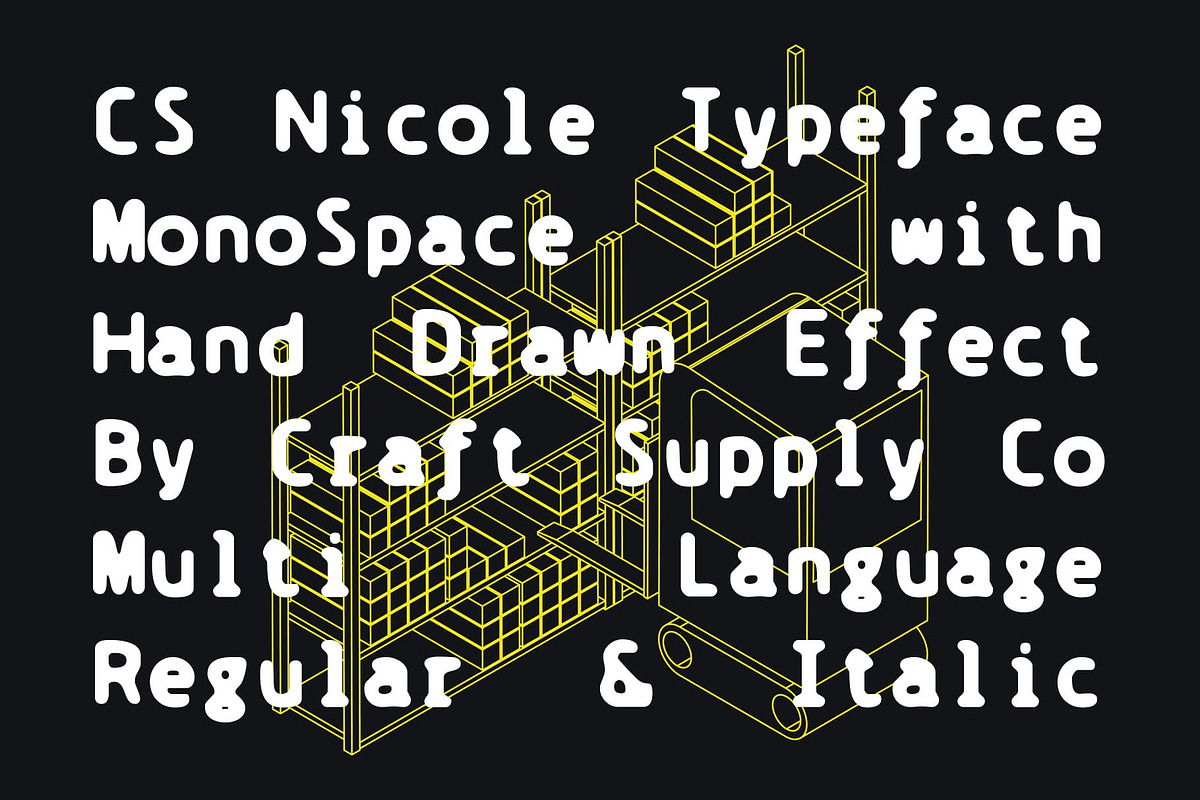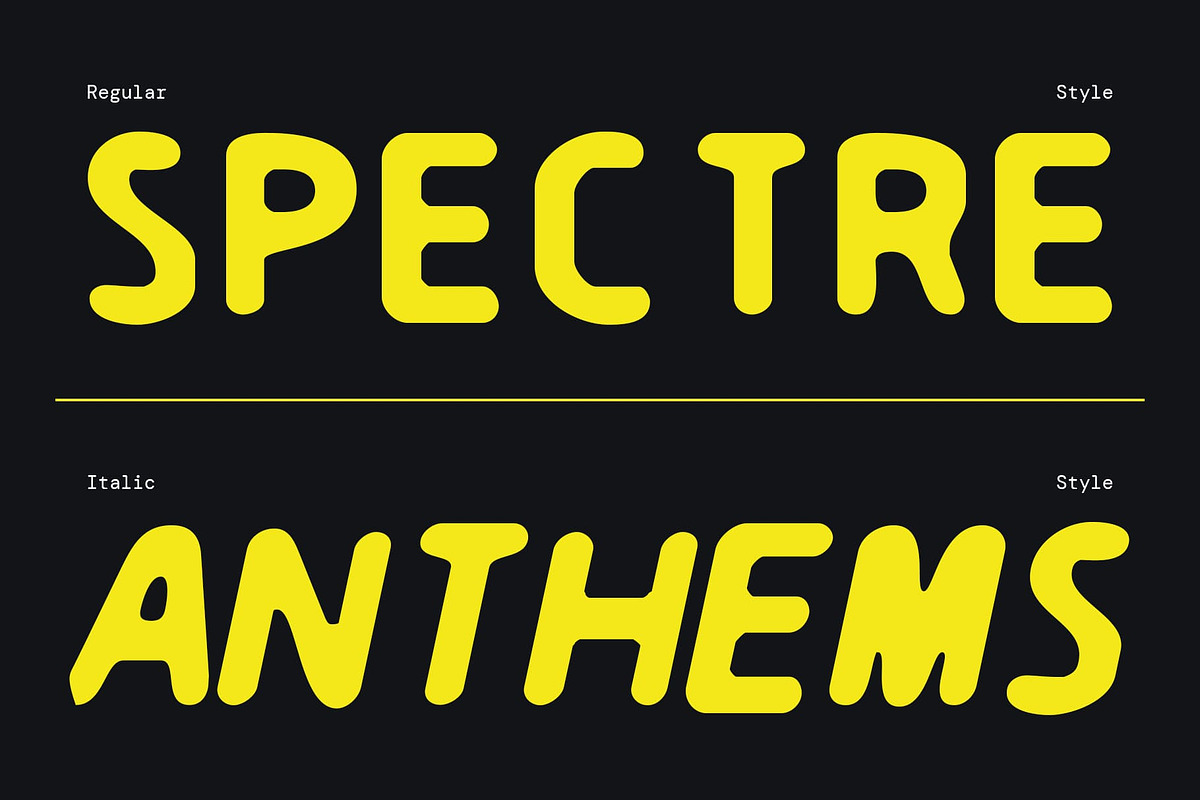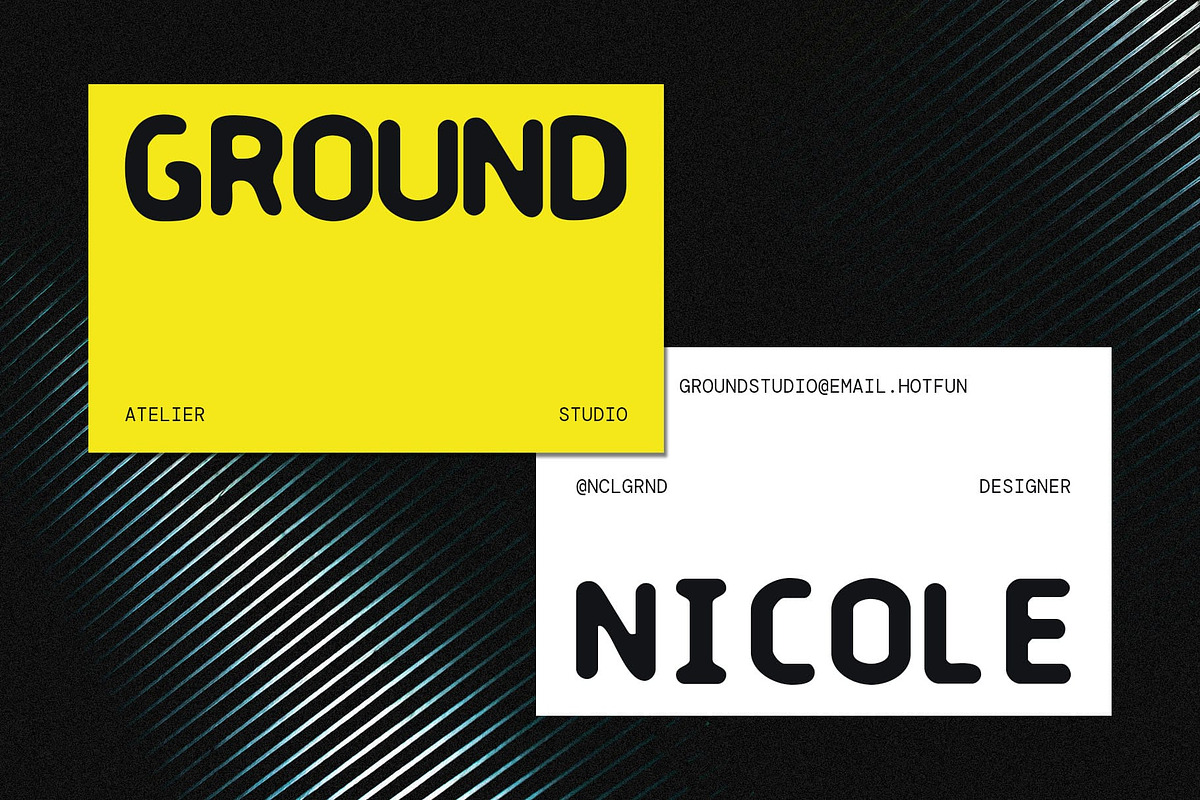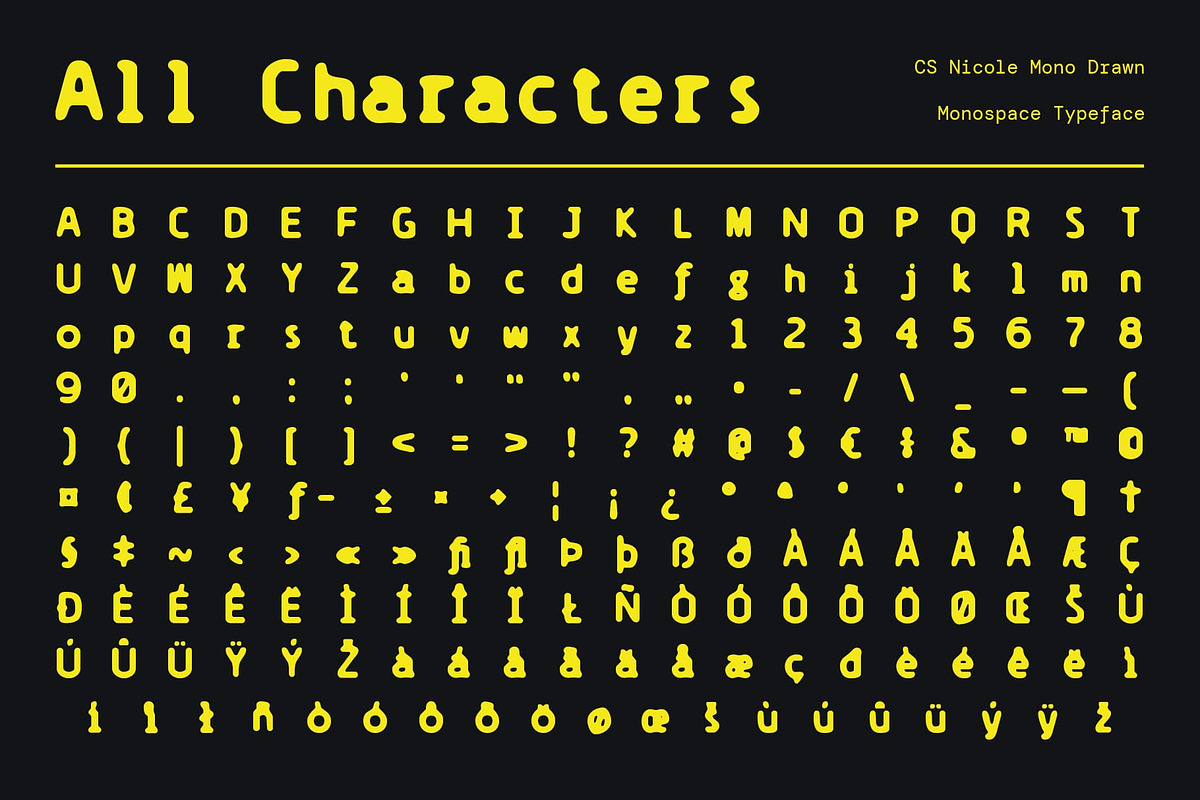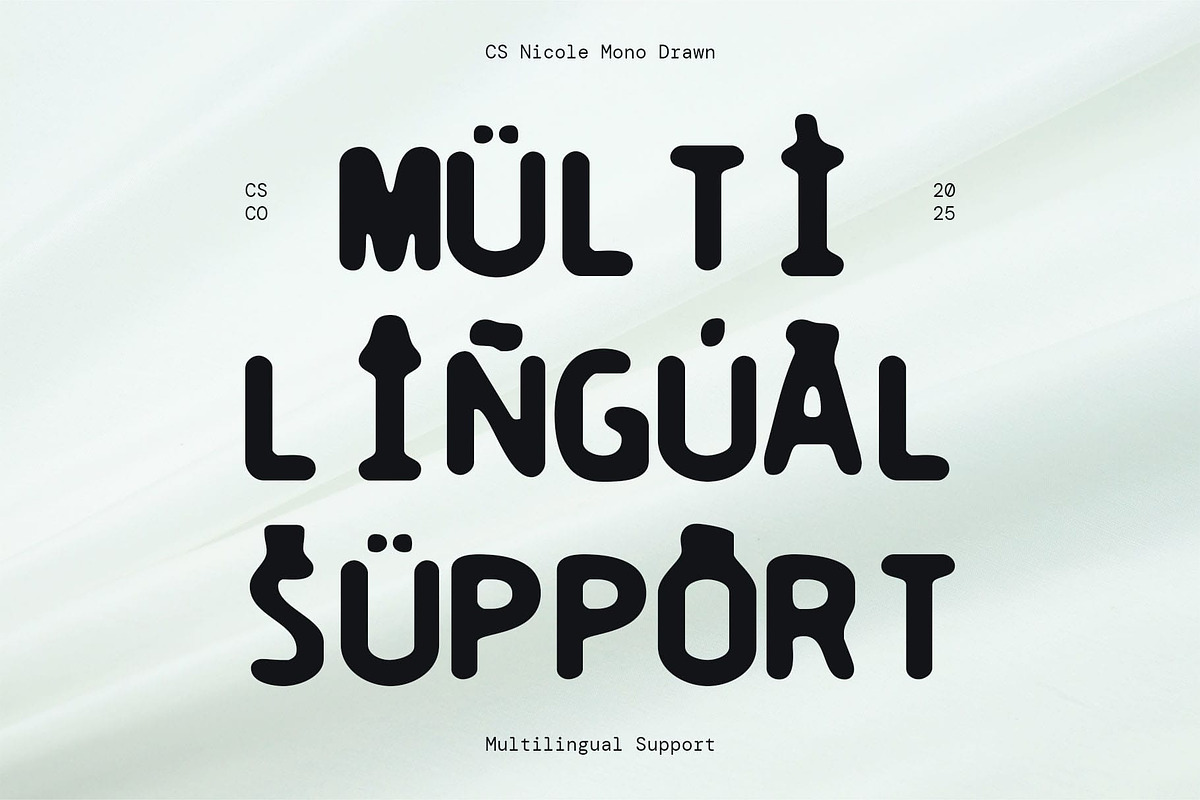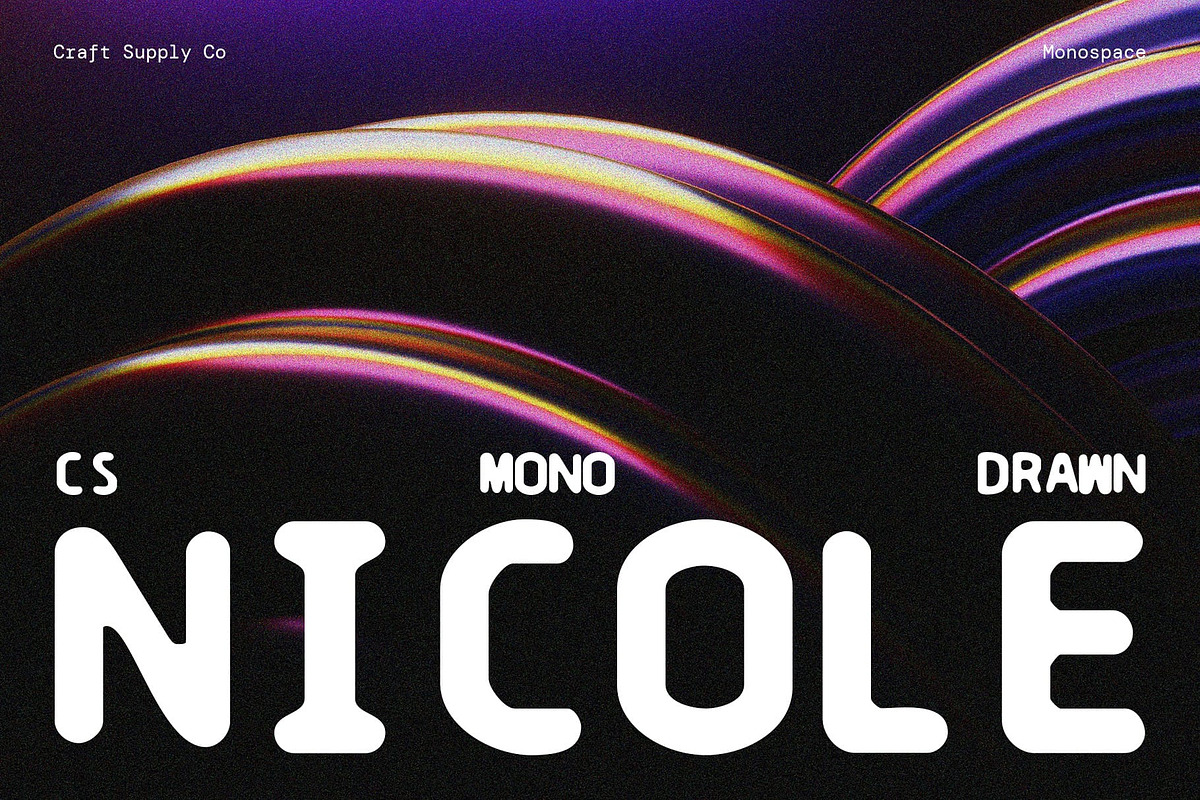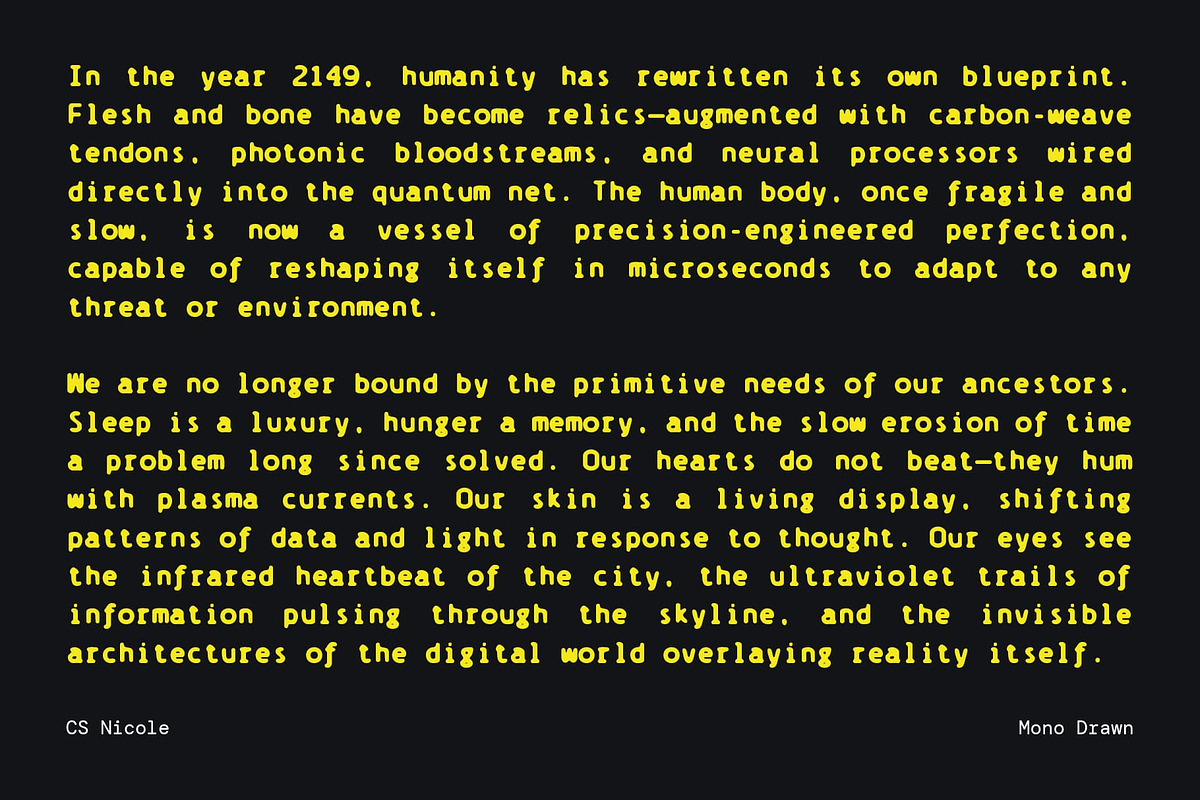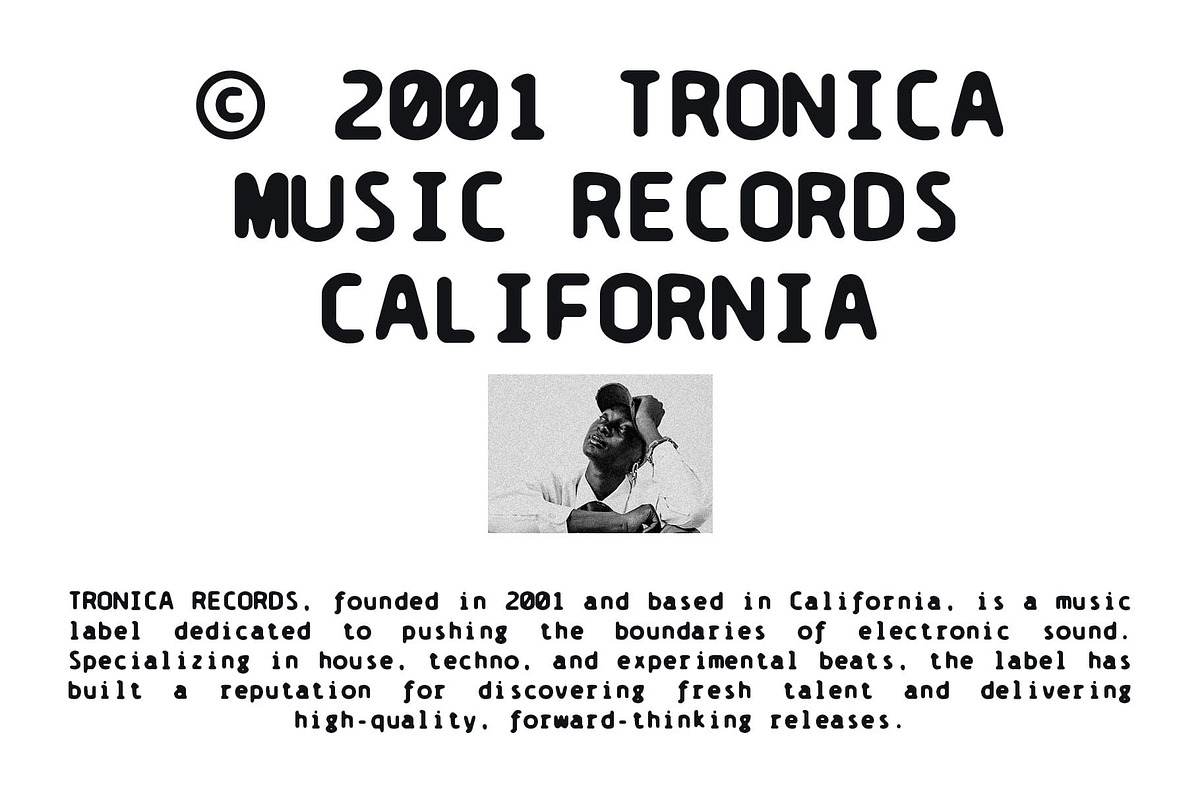
CS Nicole Mono Drawn
CS Nicole Mono Drawn – Modern Monospaced Sans Serif with Handmade Texture
Clean and Geometric Letterforms This font features precise, modern monospaced sans serif shapes. Its clean geometry and consistent spacing ensure optimal readability, making it ideal for designs that demand clarity, professionalism, and visual balance.
Artistic Drawn Effect Enhanced with a subtle drawn effect, each character carries a handmade texture that adds personality and uniqueness. This artistic touch transforms the monospaced design into a visually engaging and expressive font, perfect for creative applications.
Professional Yet Personal Striking a balance between contemporary design and handcrafted artistry, this expressive and creative font works seamlessly for tech visuals, coding displays, modern branding, and editorial projects. Its clean structure conveys professionalism while the drawn texture introduces a human, approachable feel.
Versatile Applications From posters and branding materials to coding visuals and digital interfaces, this minimalist and sophisticated monospaced font adapts effortlessly to a variety of design contexts. Its combination of monospaced precision and artistic detailing makes it suitable for projects that require both clarity and character.
Distinctive Presence in Every Design With consistent letter spacing, geometric balance, and subtle handcrafted nuances, this precise and technical font maintains readability while offering a modern and expressive personality. This font elevates any project with a blend of professional sophistication and unique artistic charm.